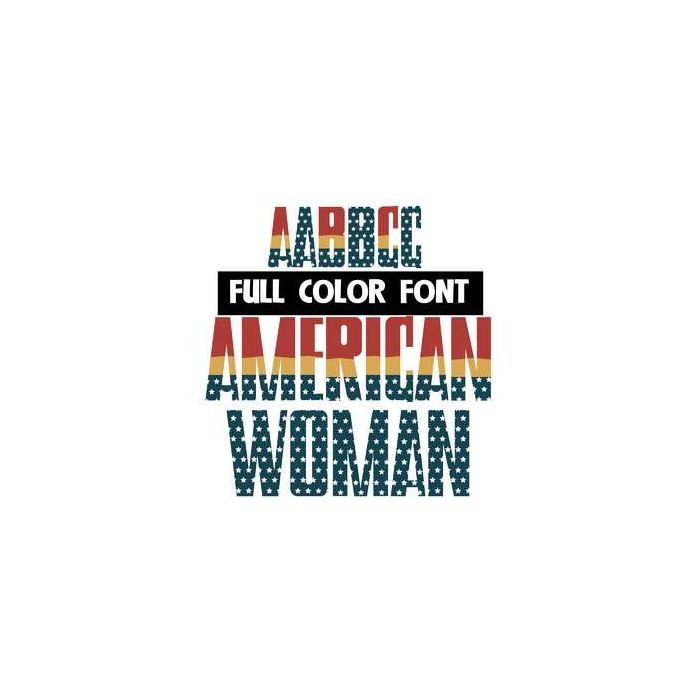
This star-studded font features a gold belt on the uppercase. This font works best for titles, displays, posters and more. Please note color fonts will show as black in non compatible programs. This font type is compatible with Silhouette Studio.